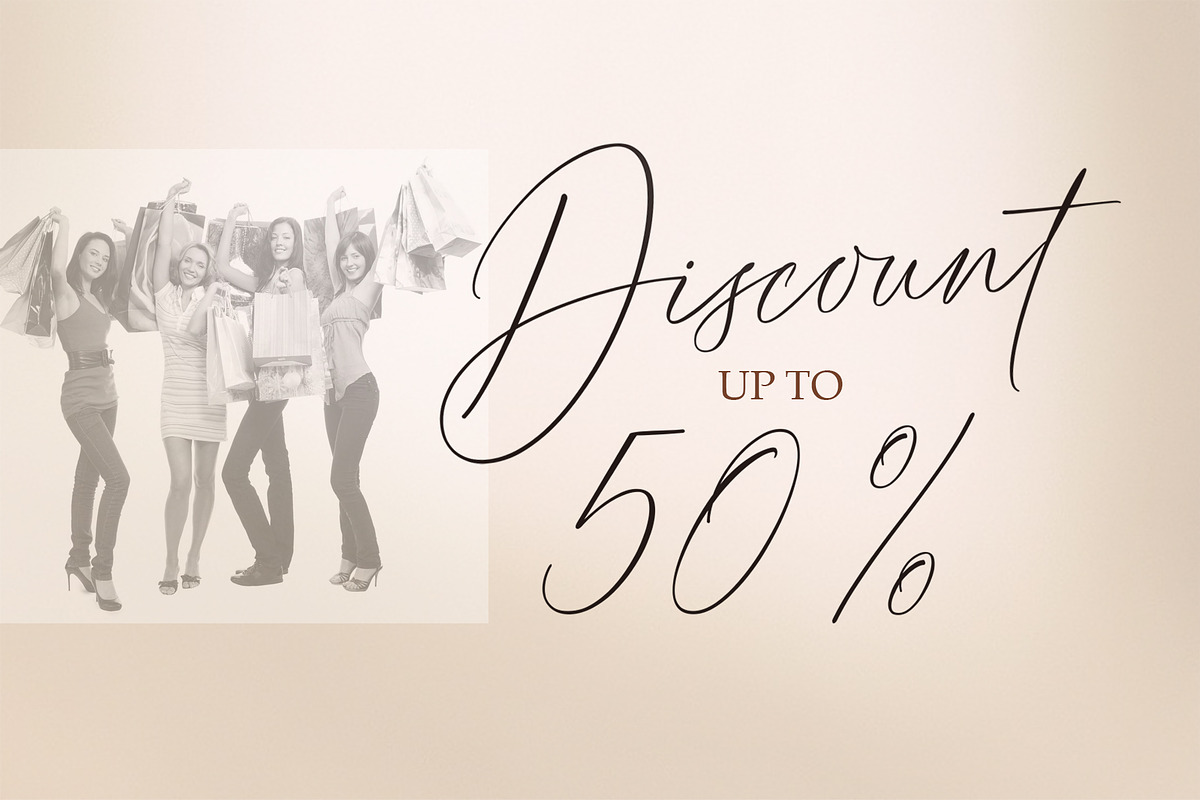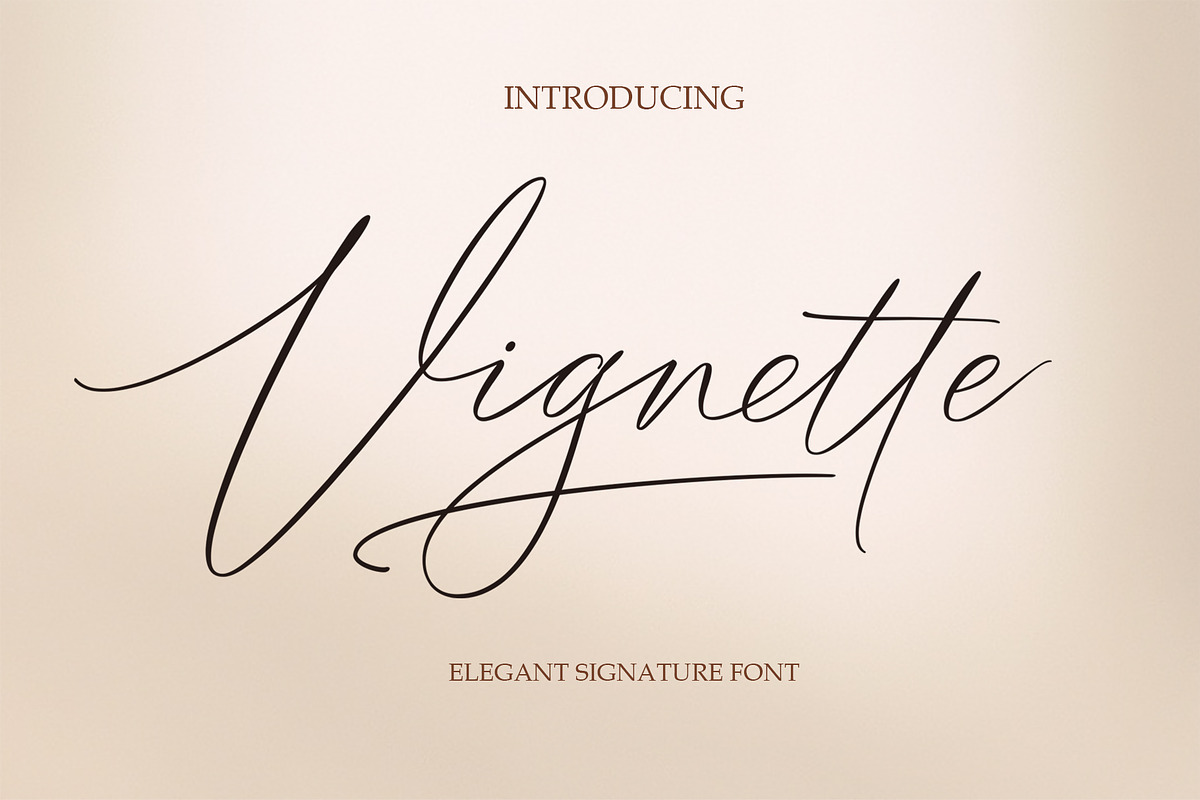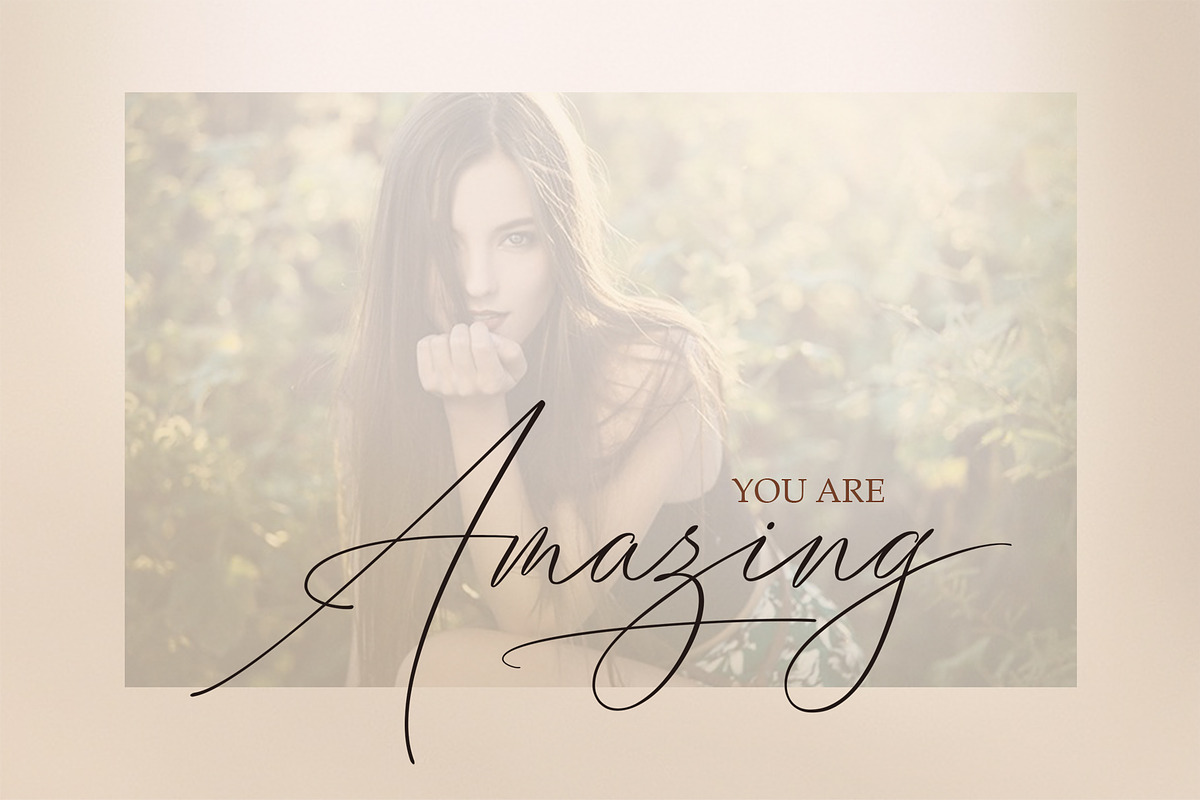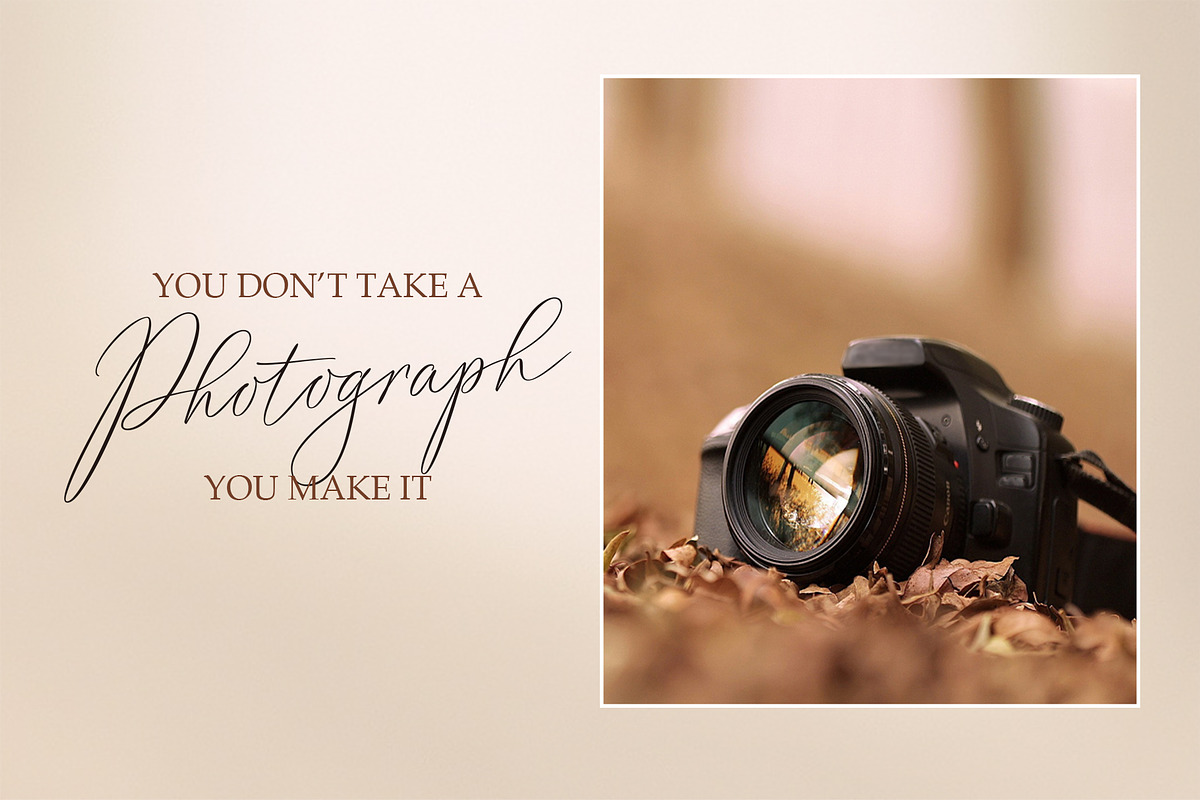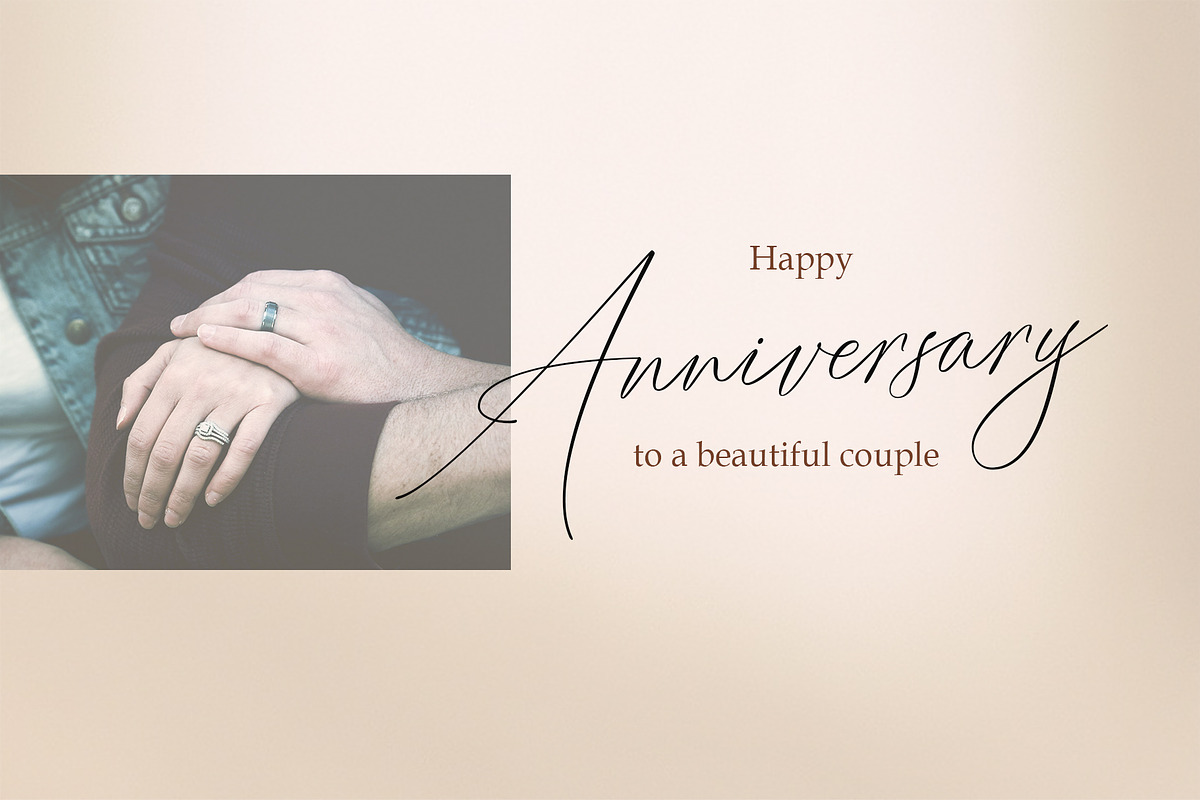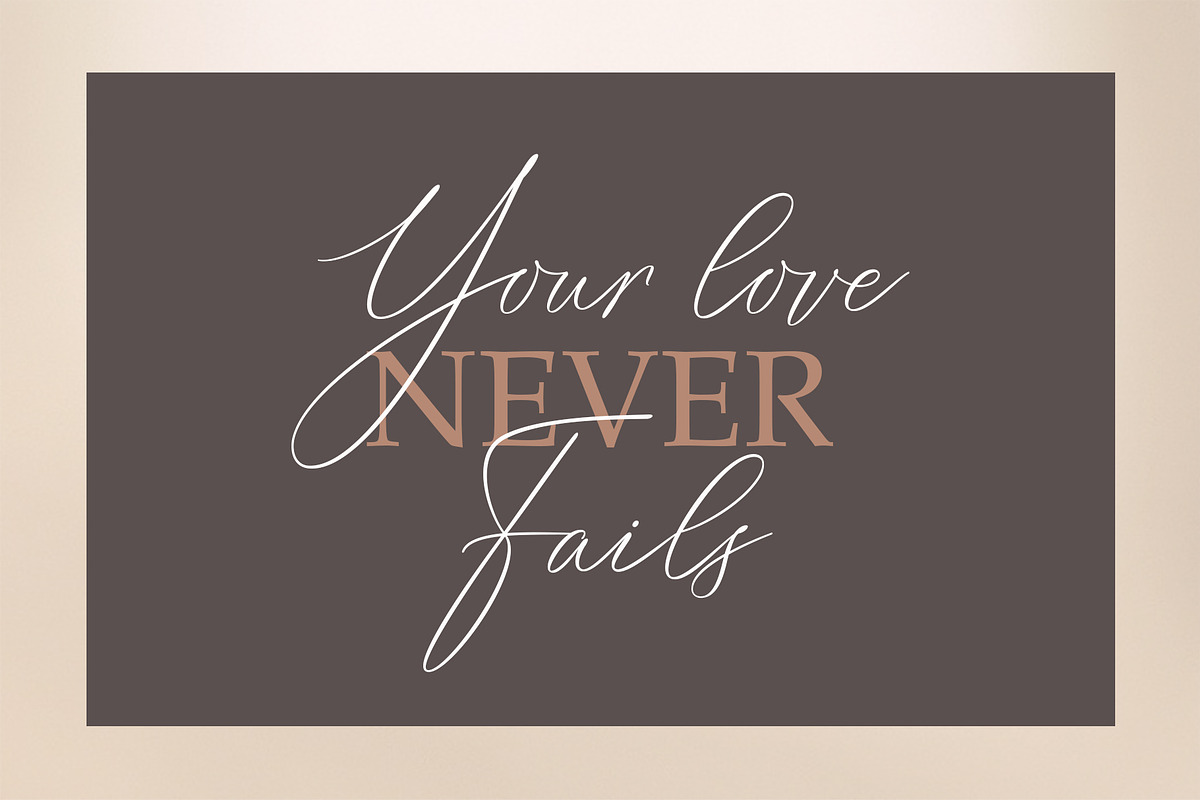
Vignette Signature Font
Vignette Signature is a modern, smooth, modern calligraphy font
This is perfect for branding, wedding invitations and cards.
Vignette Signature includes a complete set of upper and lower case letters, numbers, various punctuation marks and ligature. All lowercase letters include beginning and ending swash, giving a realistic handwriting style. All uppercase letters include the beginning of swash, which makes the font look great!
Vignette Signature Font by Byuly Ayika fits naturally into Branding, posters, packaging, typography.